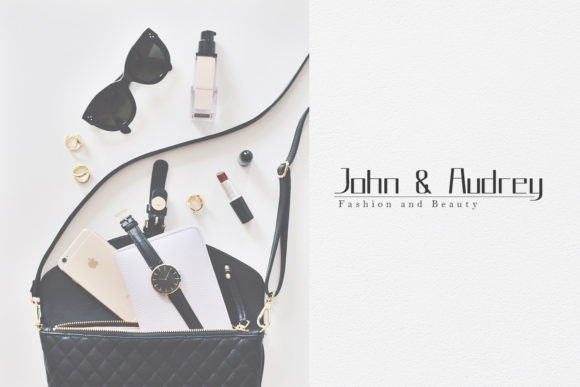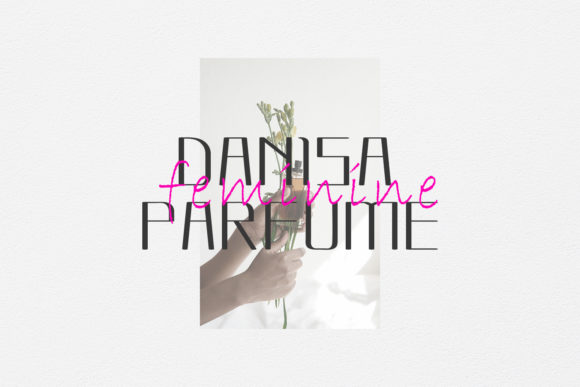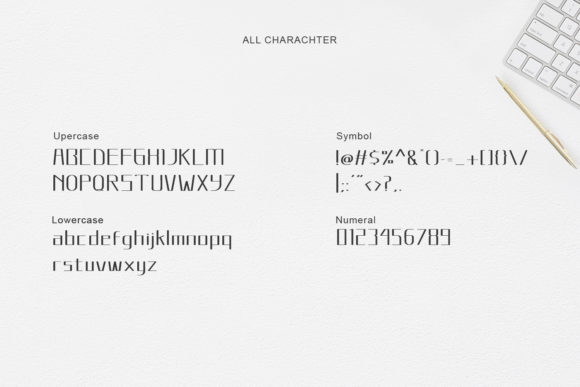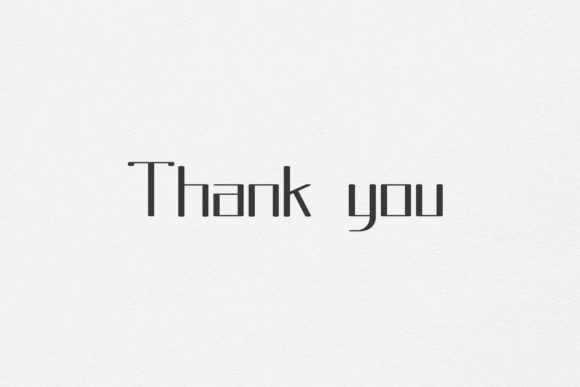
Introduction to Mastofa Font
Imagine you’re sitting at your desk, surrounded by scattered papers, half-finished designs, and a faint glow of your computer screen. You’re working on a creative project, and the perfect font is the missing piece that will bring everything together. That’s where the Mastofa Font comes in – a elegant, modern, and minimalist sans serif font that can elevate your design to the next level.
As a valuable resource for designers, the Mastofa Font offers a high-quality solution for various design needs, from logos and wedding invitations to headings, t-shirts, and signage. With its transparent background and versatility, it’s no wonder that designers are flocking to this design resource. And the best part? You can download it for free, making it an accessible addition to your design arsenal.
Whether you’re a seasoned pro or just starting out, the Mastofa Font is a must-have for any creative project. Its clean lines and simple design make it perfect for a wide range of applications, from digital to print. So why settle for anything less? Discover the beauty of the Mastofa Font and take your designs to new heights.
Key Features of Mastofa Font
- High-Quality Typography: The Mastofa Font is designed with precision and attention to detail, making it a valuable resource for any creative project.
- Transparent Background: The Mastofa Font features a transparent background, allowing for seamless integration with any design element.
- High Resolution: The Mastofa Font is designed at a high resolution of 300 DPI, making it ideal for use in print and digital media.
- Unique Character Set: The font features a unique character set, including a range of special characters and symbols, making it a versatile design resource.
- Perfect for Creative Projects: The Mastofa Font is perfect for use in creative projects, including logos, branding, and marketing materials.
Honest Review: Mastofa Font
I recently had the chance to work with the Mastofa Font, and I must say it’s been a game-changer for my creative projects. As a designer, I’m always on the lookout for high-quality design resources that can help elevate my work, and the Mastofa Font definitely delivers. ✨
One of the things I love about this font is its versatility. It’s perfect for a wide range of design applications, from graphic design and branding to digital design and creative projects. Plus, the fact that it’s available as a free download makes it a great resource for designers on a budget.
- Perfect for graphic design, branding, digital design, and creative projects
However, I did encounter a few limitations while working with the Mastofa Font. For one, it doesn’t support transparent backgrounds, which can be a bit of a challenge for designers who need to create complex designs. Additionally, the font’s character set is limited, which can make it difficult to use for certain types of projects. ⚠️
Overall, I’m really impressed with the Mastofa Font, and I would definitely recommend it to designers who are looking for a high-quality, versatile font for their creative projects.
Tips for Getting the Most Out of Mastofa Font
To get the most out of Mastofa Font, use it on a transparent background to create a clean and modern look. Experiment with different font sizes and styles to find the perfect combination for your creative project. You can also use the font in conjunction with other design elements to create a unique and eye-catching design.